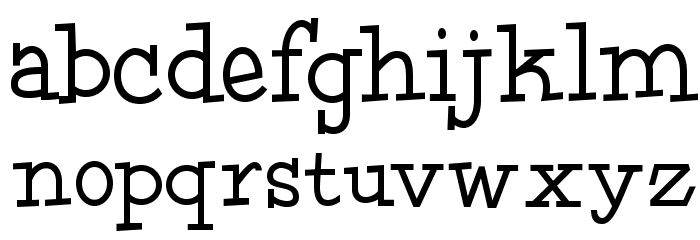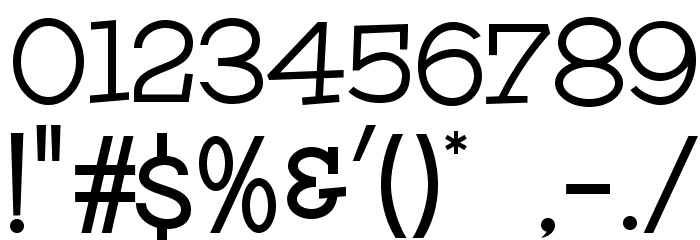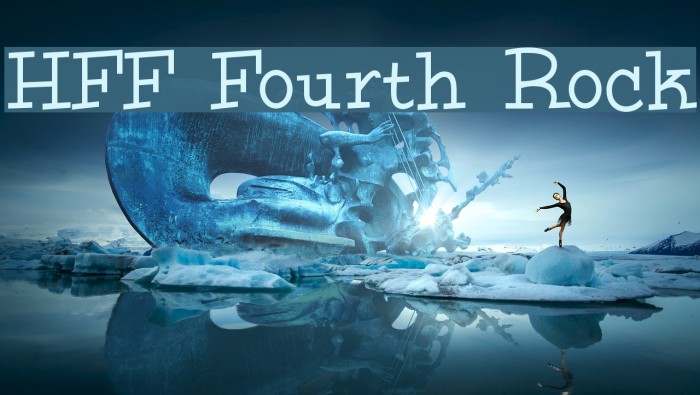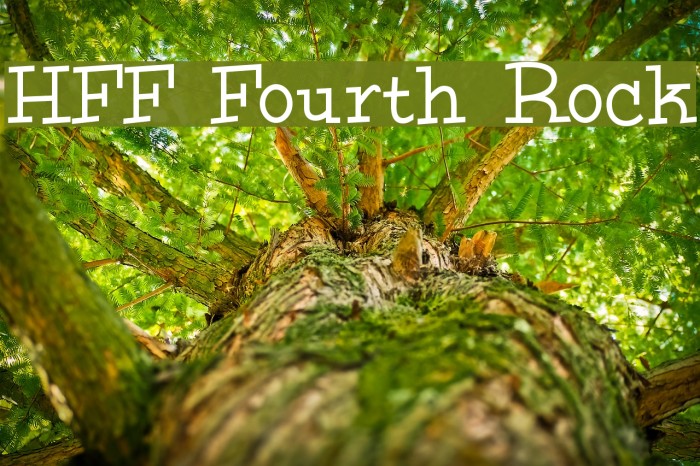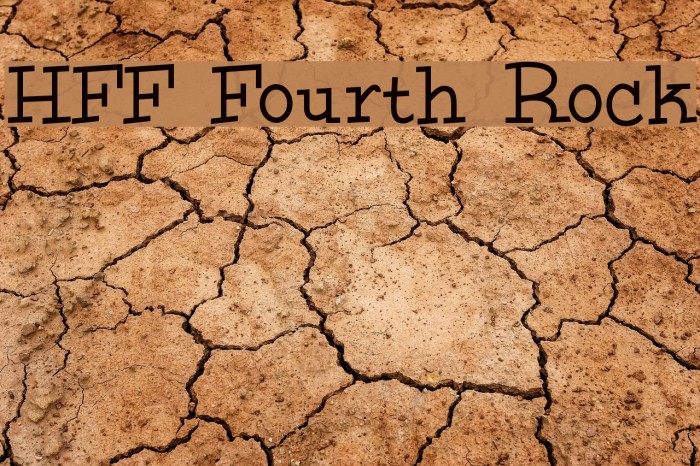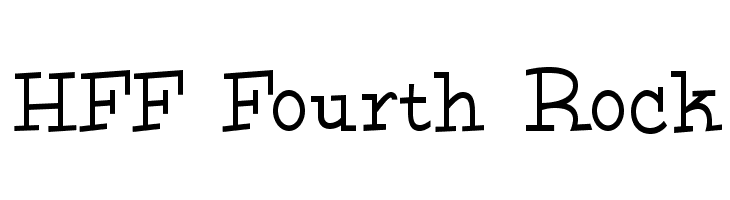
HFF Fourth Rock Font
This font features a playful and slightly quirky design, characterized by its unique blend of serif and slab serif elements. The uppercase letters are bold and prominent, with distinctive serifs that add a touch of elegance and sophistication. The lowercase letters maintain a consistent style, offering a harmonious balance between readability and decorative flair. The numerals are clear and well-defined, making them suitable for various applications. The special characters are creatively designed, adding a whimsical touch to the overall aesthetic. This font is ideal for projects that require a blend of traditional and modern elements, providing a versatile option for designers.
A playful serif font with a blend of traditional and modern elements.
- Proposed Projects: Ideal for branding, posters, headlines, and creative projects that require a unique and stylish touch.